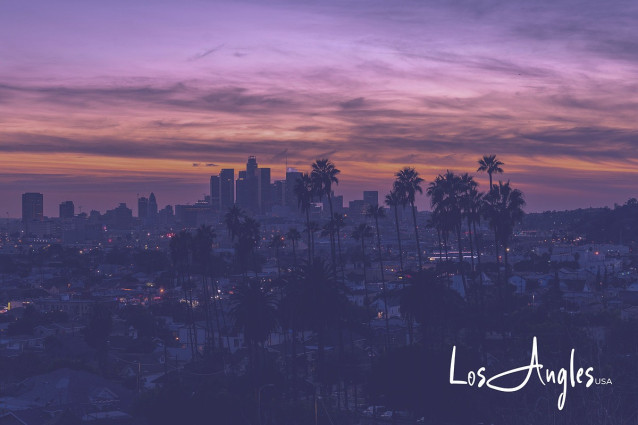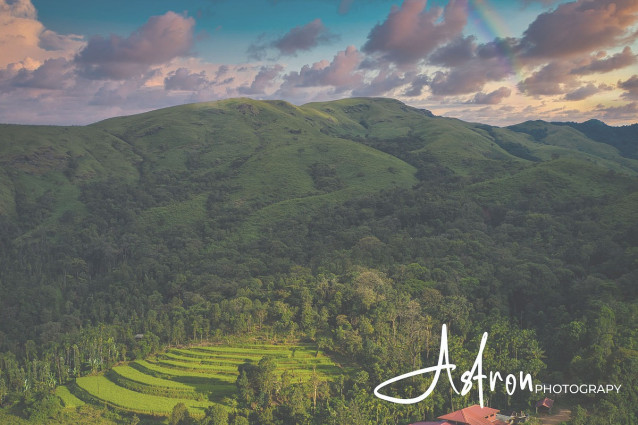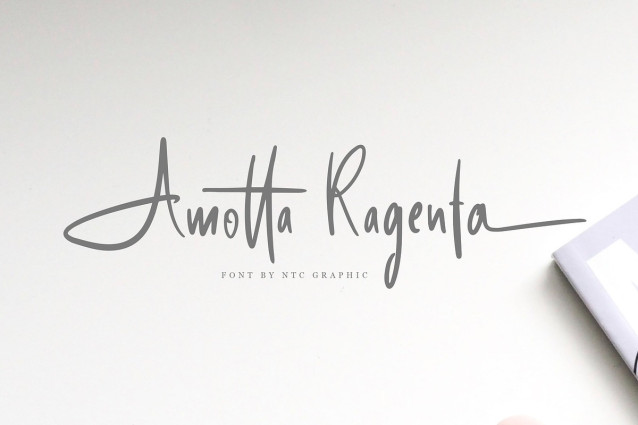
Amotta Ragenta Font
Amotta Ragenta Font, a stunning handwritten font with a signature style that exudes elegance and personality. Crafted with uniquely shaped characters, this font adds a sophisticated touch to your designs, making them more captivating and memorable.